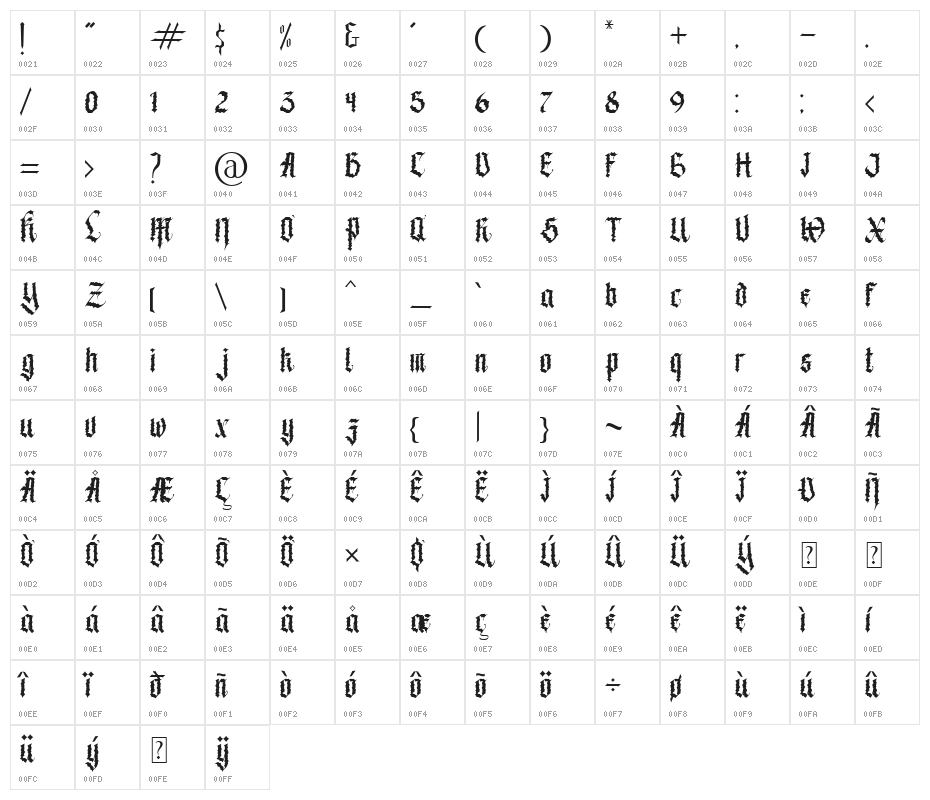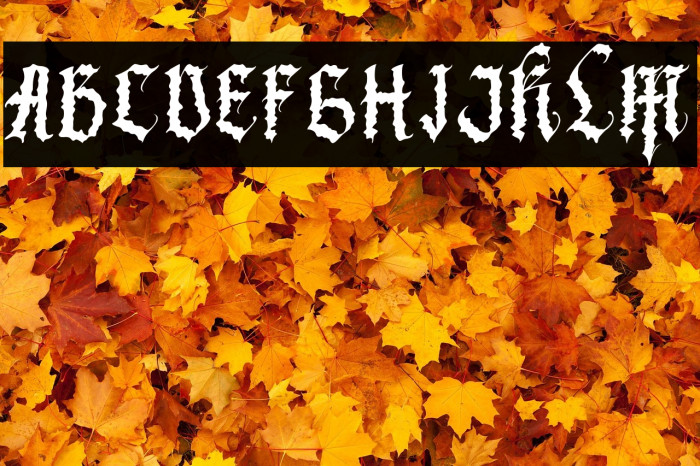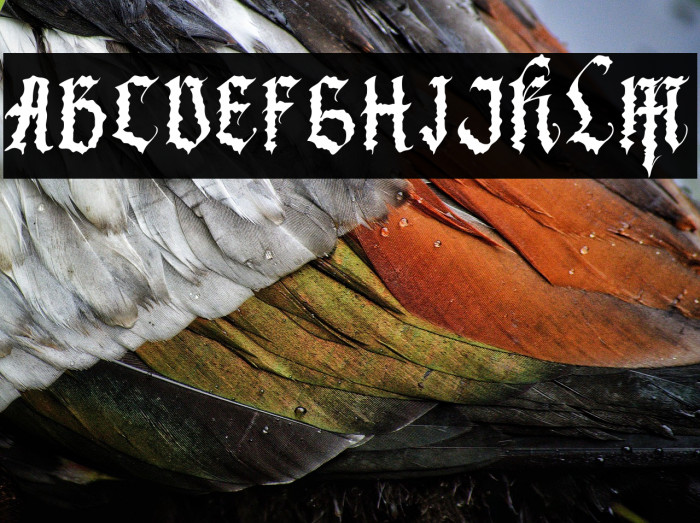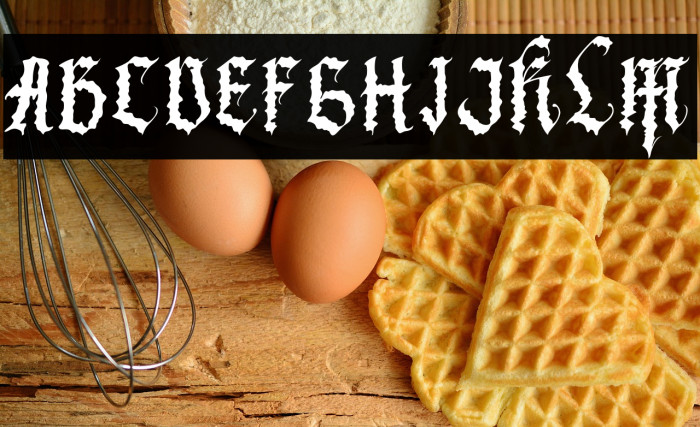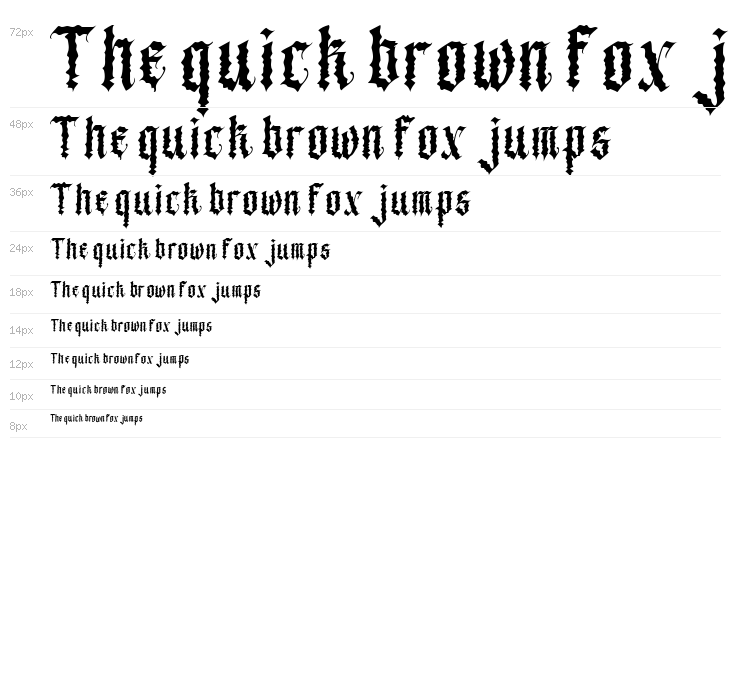
Black Metal Font
Black Metal Description
This font exudes a dark, gothic aesthetic reminiscent of black metal music and culture. The characters are sharp and jagged, with an intricate design that mimics the look of thorny vines or barbed wire. The uppercase and lowercase letters maintain a consistent style, with bold strokes and pointed serifs that give the font a menacing yet artistic appearance. Numbers and special characters follow the same theme, ensuring a cohesive look across all text elements. This font is perfect for projects that require a dramatic and intense visual impact.